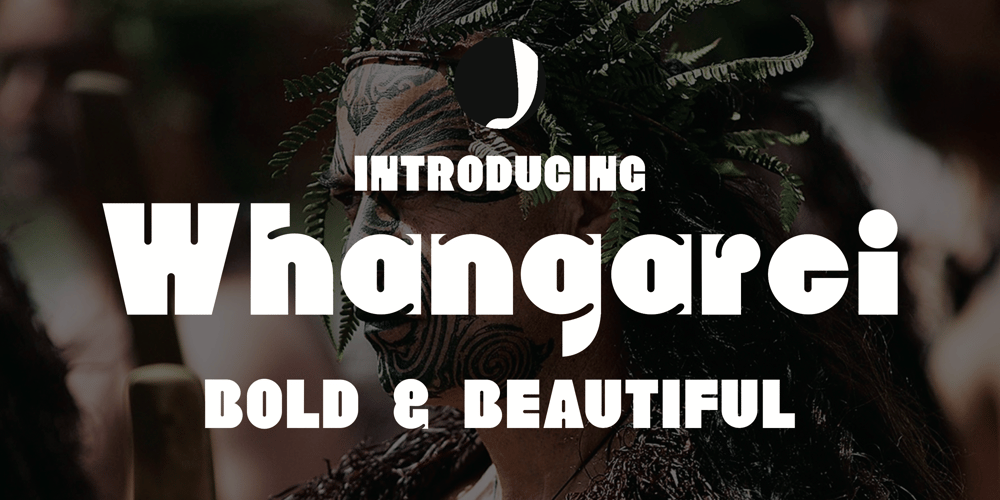
Whangarei Font Family was designed by mobaric minhas and published by Jadugar Design Studio. Whangarei contains 4 styles and family package options. Whangarei is a bold font which is best choice for your new project. It have two styles: Regular and italic. The name of this font is based on one of beautiful part of New Zealand. “Whangarei” Māori: [faŋaˈɾɛi])” is the northernmost city in New Zealand and the regional capital of Northland Region. Buy and enjoy the flavor of rich heritage of Maori culture.